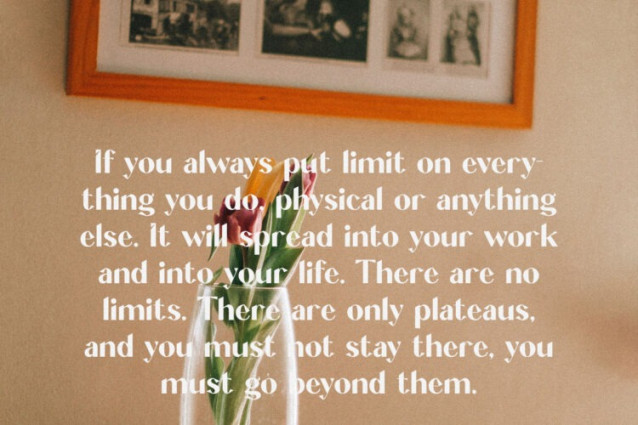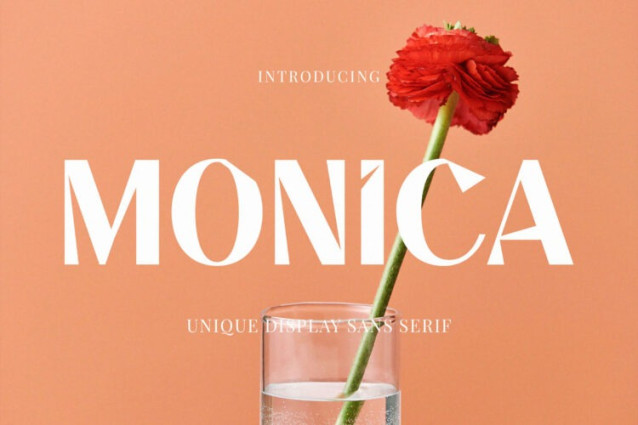
Monica Sans Font
Monica Sans Font, modern sans serif font with elegant style this is perfect for branding, logos, invitation, magazines, product packaging and more.